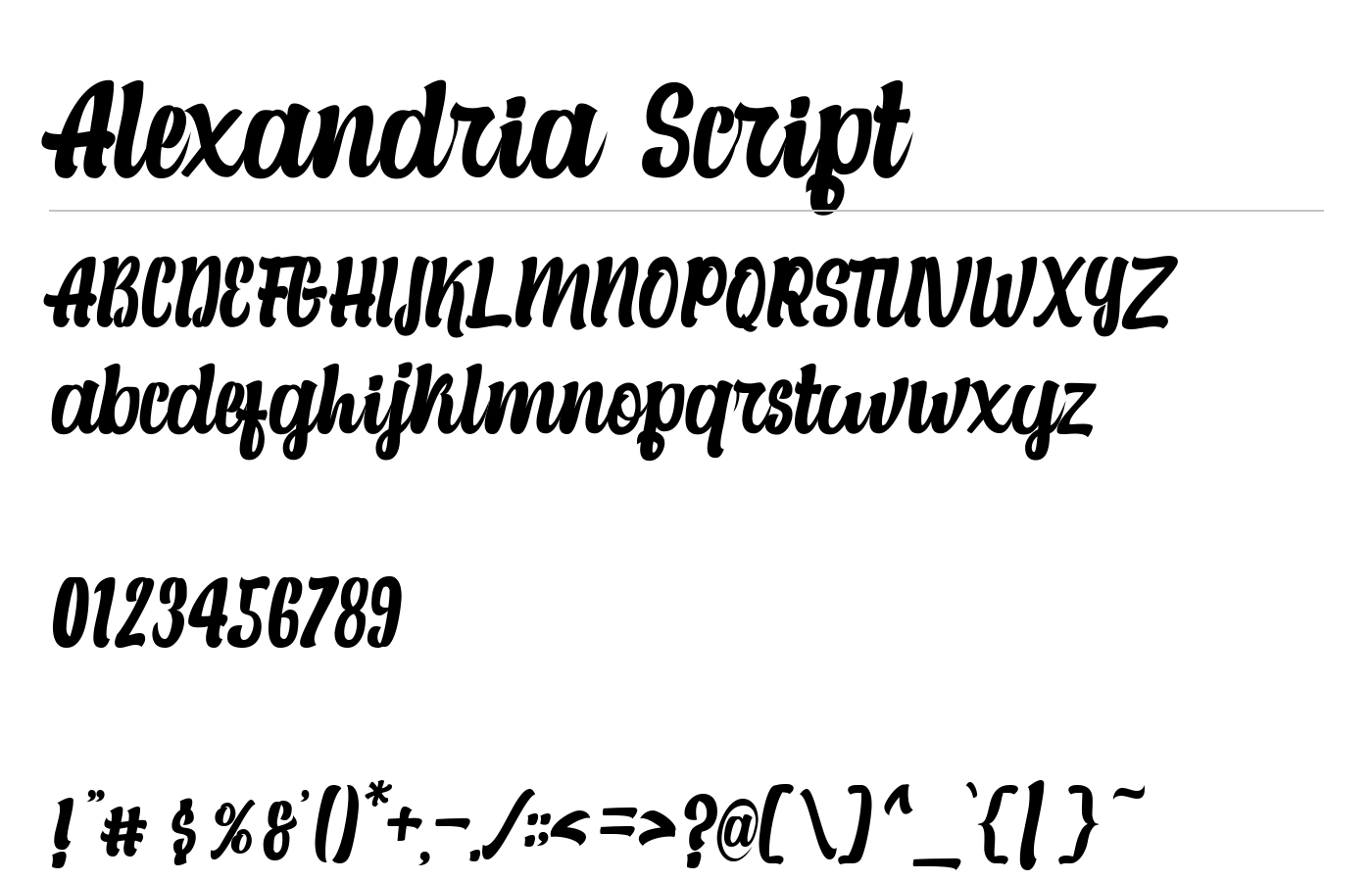
Alexandria Script is a bold, lively script font with smooth, rounded strokes and a slightly condensed width that adds a touch of elegance without sacrificing readability. Its playful yet confident style makes it perfect for branding, invitations, and headlines where a friendly, handcrafted feel is desired. This font shines in creative projects that seek a warm, approachable personality with a strong visual impact.
Alexandria Script Font
About Alexandria Script Font
| Font family | Alexandria Script Font |
| Designer | Debut Studio |